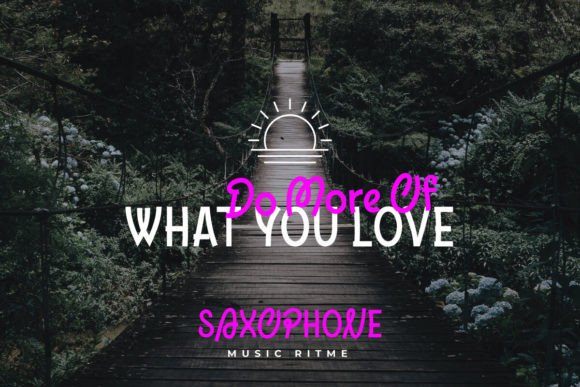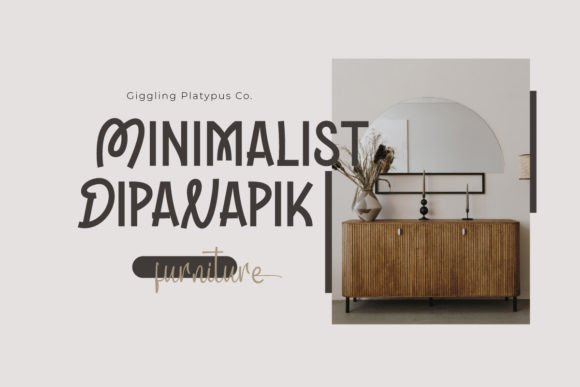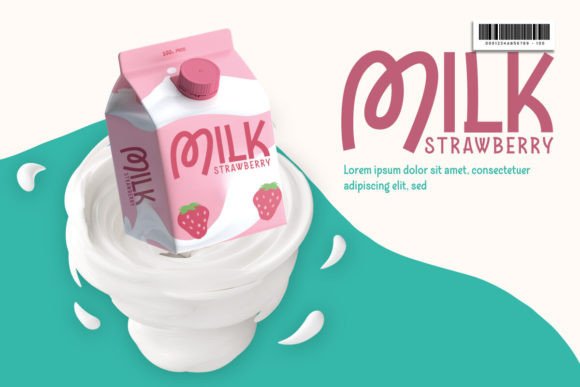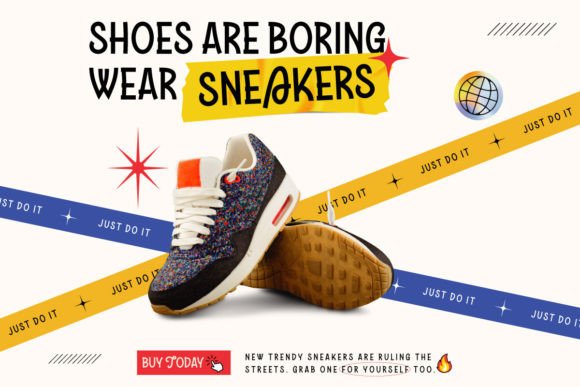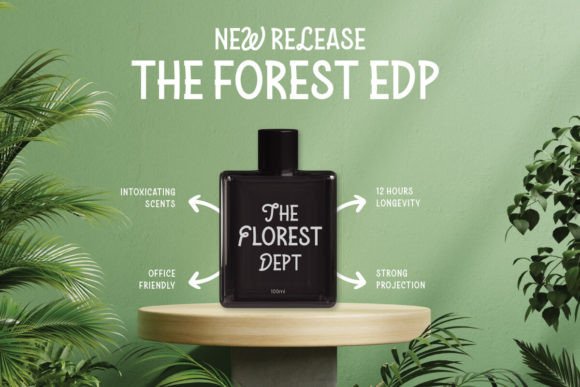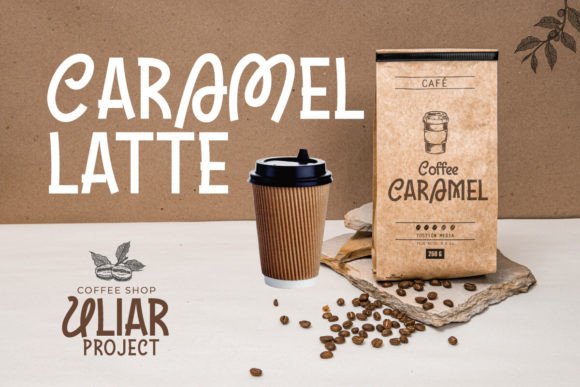
Welcome to the World of Aboxe Font: Embrace the Joy of Summer in Your Designs
Are you looking for a font that captures the essence of summer and brings a relaxed, fun atmosphere to your designs? Look no further than Aboxe, a display font specifically crafted for summer design themes. With its cheerful and refreshing style, Aboxe is the perfect choice for designers and crafters who want to infuse their projects with warmth and joy.
The Unique Charm of Aboxe Font
Aboxe font boasts a unique and friendly shape that sets it apart from other display fonts. Its design is carefully crafted to evoke the feeling of a carefree summer day, making it an ideal choice for branding, posters, party invitations, and any project related to summer. Whether you’re working on materials for a beach event, a summer festival, or a playful promotional campaign, Aboxe offers unmatched flexibility and visual appeal.
Endless Design Possibilities with Aboxe
One of the standout features of Aboxe font is its versatility. This font can be used in a wide range of design projects, from digital content to print materials. Imagine creating eye-catching posters for a summer sale, designing fun and playful invitations for a beach party, or crafting engaging social media content that captures the spirit of the season. With Aboxe, the possibilities are endless.
Why Choose Aboxe Font for Your Summer Designs?
- Unique and Friendly Design: Aboxe’s distinctive shape makes it perfect for designs that require a personal touch.
- Perfect for Summer Themes: Specifically designed for summer, Aboxe brings a cheerful and refreshing style to your projects.
- Highly Versatile: Suitable for a wide range of design projects, from branding to promotional materials.
- Easy to Use: Aboxe font is easy to integrate into your designs, making it accessible for designers of all levels.
Capture the Essence of Summer with Aboxe
Summer is a season of fun, relaxation, and joy. With Aboxe font, you can easily capture this essence and bring it into your designs. Whether you’re a professional designer or a crafter, Aboxe provides the perfect tool to express the carefree spirit of summer. From vibrant colors to playful patterns, Aboxe font complements a variety of design elements, ensuring your projects are always visually appealing.
Feel Happiness and Joy in Your Designs
Aboxe is more than just a font; it’s a way to feel happiness and joy in your designs. By incorporating Aboxe into your projects, you’re not just adding a visual element; you’re bringing the spirit of summer into your life. This font encourages creativity and playfulness, making it an excellent choice for designers who want to create engaging and memorable content.
Aboxe font is a game-changer for designers and crafters looking to infuse their summer projects with a relaxed and fun atmosphere. Its unique design, versatility, and ease of use make it the perfect choice for a wide range of applications. Welcome to the world of Aboxe, where every design project becomes a celebration of summer’s joy and spirit.